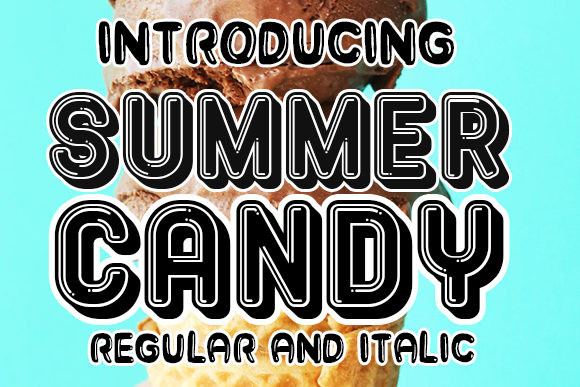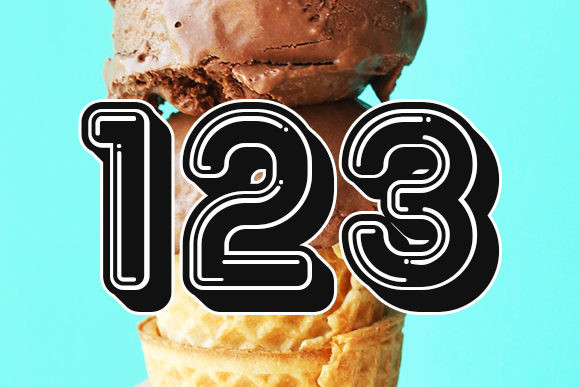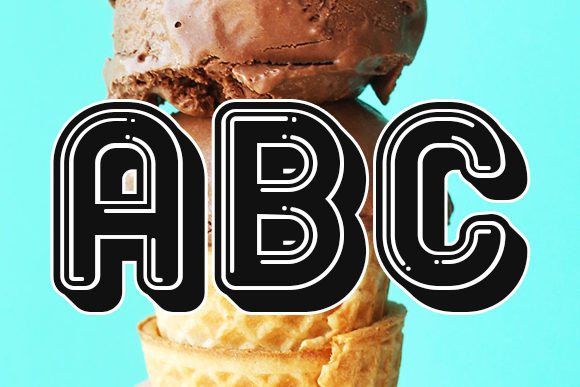
Summer Candy Font
Summer Candy is fancy font duo that comes in Regular and Italic versions. Use it for any design project that requires a personalized appearance!